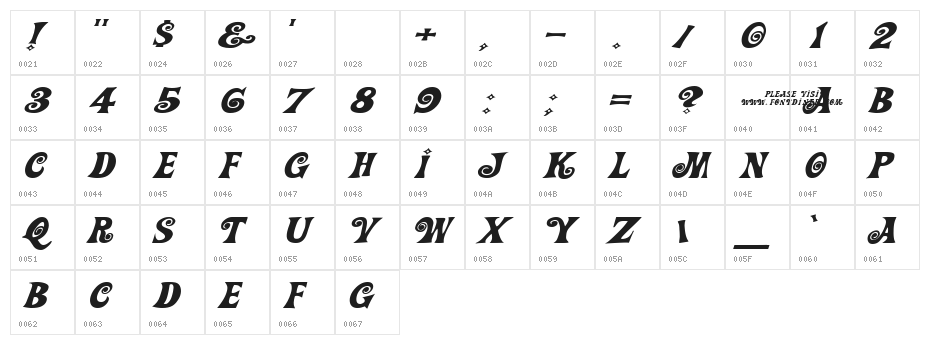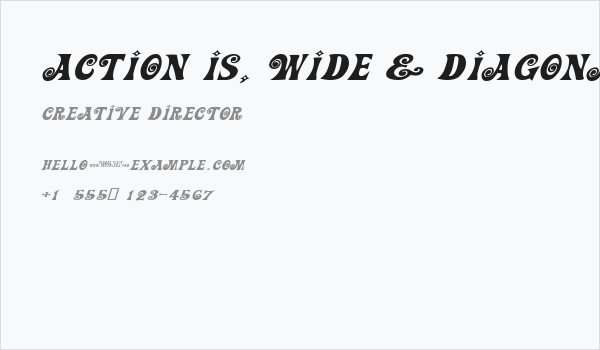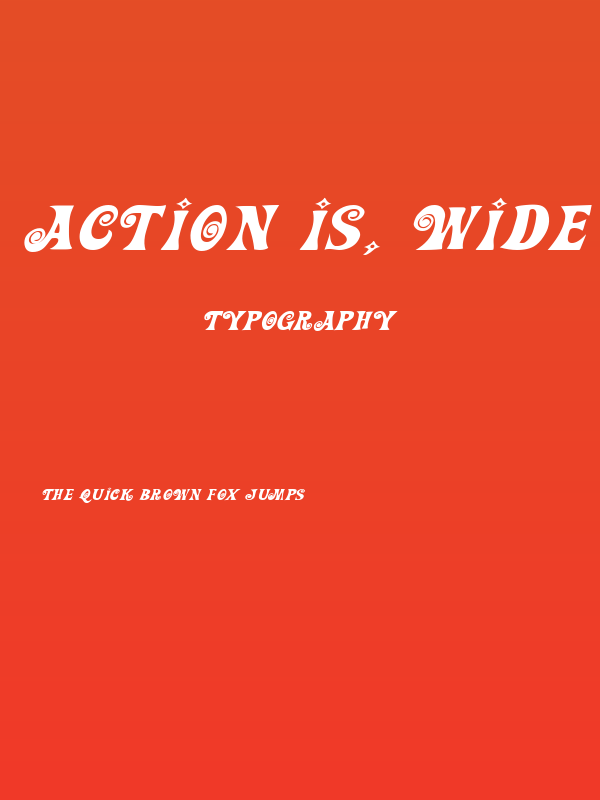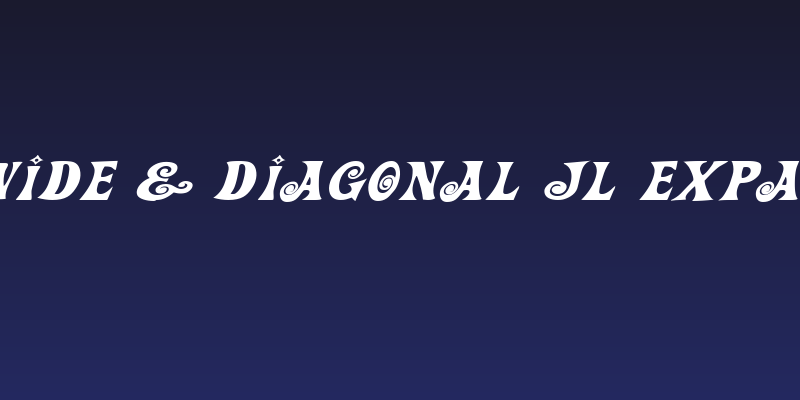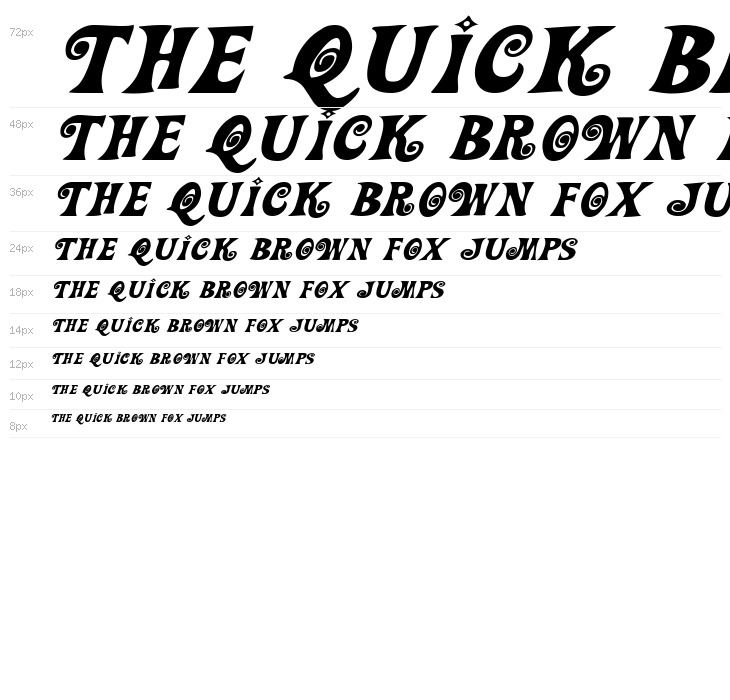
Action Is, Wide & Diagonal JL Expanded Italic Font
Action Is, Wide & Diagonal JL Expanded Italic Description
This font features a bold and decorative style with a playful and whimsical flair. The characters are adorned with unique swirls and curls, giving them a dynamic and lively appearance. The uppercase and lowercase letters maintain a consistent design, with exaggerated serifs and flourishes that add to the overall ornate look. The numbers and special characters follow the same decorative theme, ensuring a cohesive visual experience. The font's expanded width and italic slant contribute to its dramatic and eye-catching presence, making it ideal for projects that require a bold statement.
| Proposed Projects | Ideal for branding, posters, invitations, and any design project that requires a bold and decorative touch. |